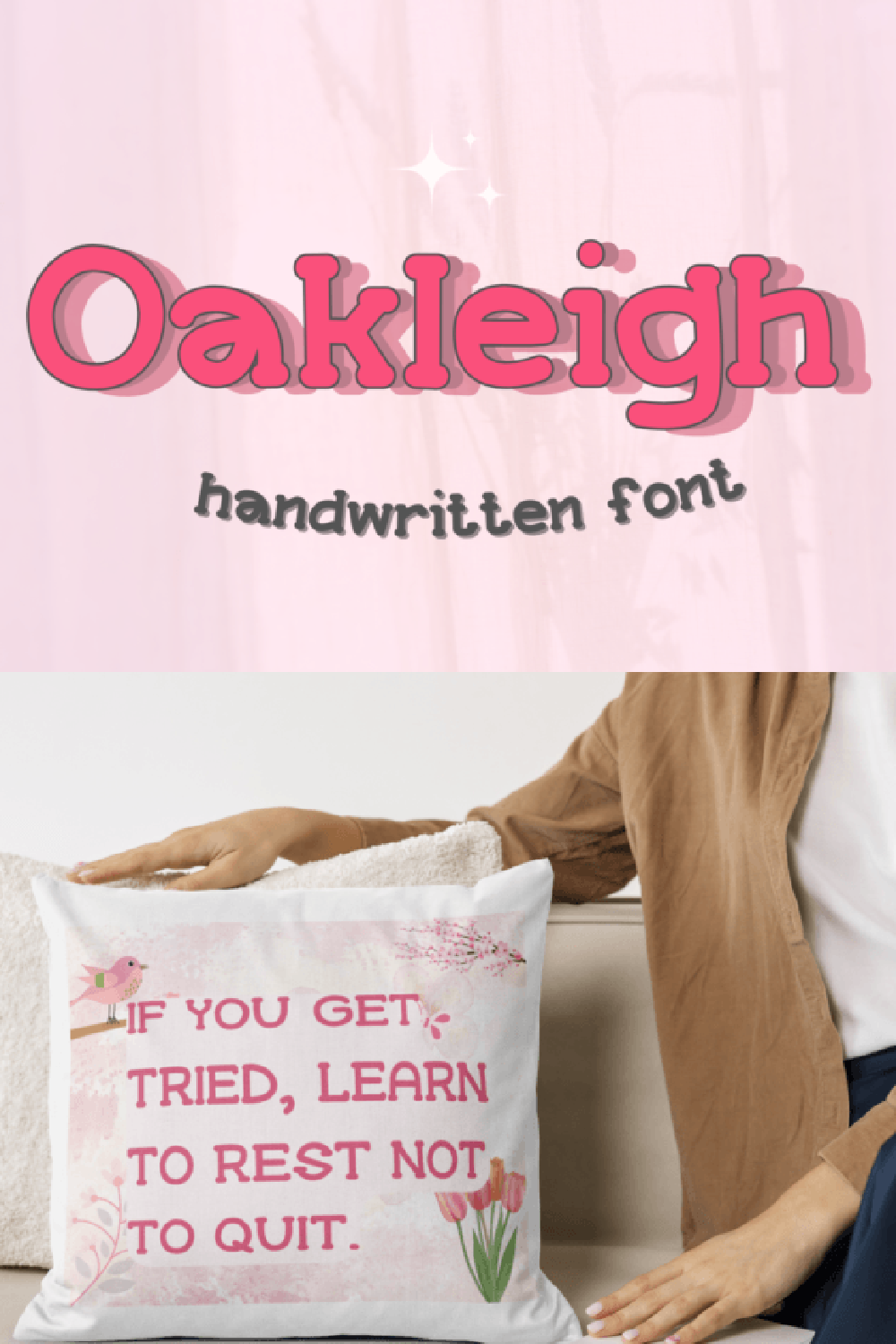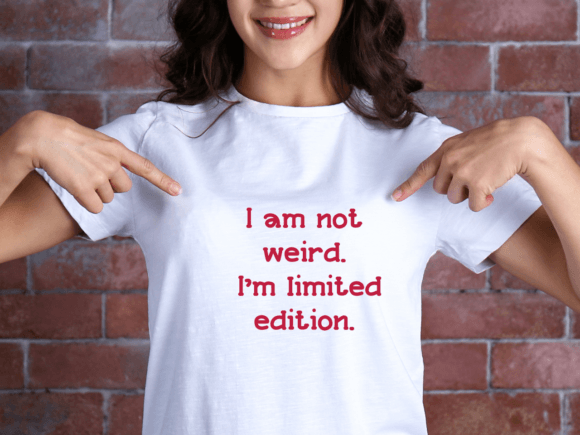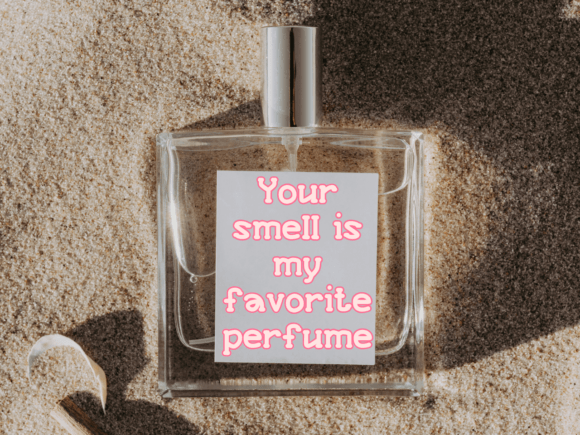
Oakleigh Font: A Sweet & Cute Handwritten Font for Crafts & DIY
About the Oakleigh Font
Unleash your creativity with Oakleigh Font, a versatile font perfect for a wide range of applications. Let’s design this font to make the design different. It has its own identity. It can be used to add distinctiveness to your work whether it is used in a letter. Design greeting cards, wedding cards Quotes, Goodnotes, planners, handwritten notes, logos, teachers, and more give your letters a unique look. With this designed font Your work will be accentuated by the novelty of the font. Weird art fonts, you can choose your own font design art according to your convenience. Thank you and hope you enjoy the art of typography. #handwritten font #Goodnotes font #planner font #cute font #teacher font #handwritten font #handwriting #Cricut font #teacher font #good note #planner #digital planner font #notebook font #letter #alphabet #font #design #typography#vector #type #different #symbol #illustration #text#set#sign#style#design#character#graphic#typeface#background#modern #isolated #colorful #typographic#lettering#element#typeset#creative#calligraphy#word#education#color#school#collection#child#retro#fun#cartoon#logo#alfabeto#number#trendy#icon#language#abstract#poster#template#vintage#cute#kid #script #Font #Fonts #Display #ort #ttf round font adds interest to textbooks Somekind Font – Handwritten Font, Cricut Fonts, Fonts for Crafters, Procreate Fonts, Fonts for Cricut, Bubbly Font, Cute FontThe Love Club Font – Serif Font, Modern Font, Cricut Font, Retro Font, Procreate Fonts, Modern Serif, Fonts for Cricut, Fonts for Logos Western Font, Country Font, Cricut Font, Retro Font, Cowgirl Font, Fonts for Cricut, Procreate Font, Vintage Font
Oakleigh Font Usage Examples
Oakleigh Font Example